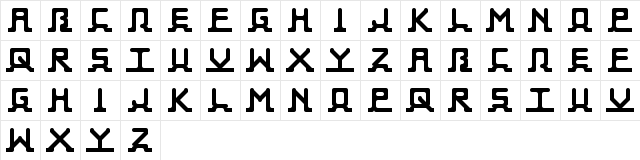
Neon Tubes Regular
Design Context for Neon Tubes Typeface
Neon Tubes channels digital-age aesthetics through its sharp, structured letterforms — ideal for brands that want to signal innovation.
Pro Tip: Use Neon Tubes in combination with a neutral sans for body text. Let it define the brand voice in headlines while keeping reading comfortable elsewhere.